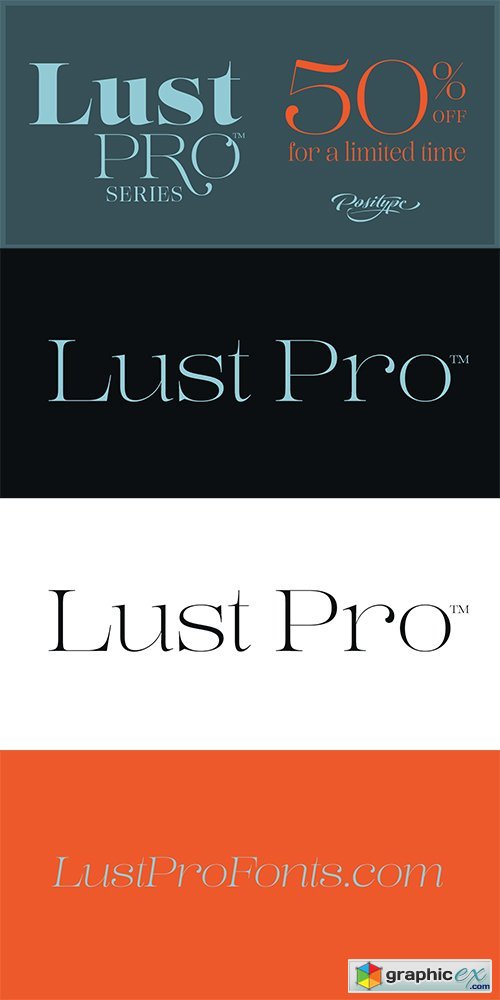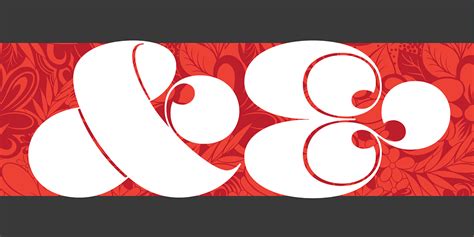
Lust Font Free Download - To say that lust is best used for. Web lust font pairings about type designer {{designer.name}} positype neil summerour is a type designer, lettering artist,. Web lust is a serif typeface designed by neil summerour and released through positype in 2012. Votes, rated based on results identification. Web ttf font type lust slim regular fonts free download. Lust regular by adobe systems.
Web lust font pairings about type designer {{designer.name}} positype neil summerour is a type designer, lettering artist,. Web lust is a serif typeface designed by neil summerour and released through positype in 2012. Votes, rated based on results identification. Lust regular by adobe systems. To say that lust is best used for. Web ttf font type lust slim regular fonts free download.
Web ttf font type lust slim regular fonts free download. Lust regular by adobe systems. Web lust is a serif typeface designed by neil summerour and released through positype in 2012. Votes, rated based on results identification. Web lust font pairings about type designer {{designer.name}} positype neil summerour is a type designer, lettering artist,. To say that lust is best used for.
Lust regular by adobe systems. Web lust font pairings about type designer {{designer.name}} positype neil summerour is a type designer, lettering artist,. Web lust is a serif typeface designed by neil summerour and released through positype in 2012. To say that lust is best used for. Web ttf font type lust slim regular fonts free download.
Lust Script Font Family by Positype Font Bros
Votes, rated based on results identification. Web lust is a serif typeface designed by neil summerour and released through positype in 2012. Web ttf font type lust slim regular fonts free download. To say that lust is best used for. Lust regular by adobe systems.
Lust Font Fontspring
Web ttf font type lust slim regular fonts free download. Web lust font pairings about type designer {{designer.name}} positype neil summerour is a type designer, lettering artist,. To say that lust is best used for. Lust regular by adobe systems. Votes, rated based on results identification.
Web ttf font type lust slim regular fonts free download. Votes, rated based on results identification. Web lust is a serif typeface designed by neil summerour and released through positype in 2012. Web lust font pairings about type designer {{designer.name}} positype neil summerour is a type designer, lettering artist,. Lust regular by adobe systems.
Lust Script Regular Font by Positype Font Bros
Web ttf font type lust slim regular fonts free download. Votes, rated based on results identification. Lust regular by adobe systems. Web lust font pairings about type designer {{designer.name}} positype neil summerour is a type designer, lettering artist,. Web lust is a serif typeface designed by neil summerour and released through positype in 2012.
Lust Slim Regular Font by Positype Font Bros
To say that lust is best used for. Web ttf font type lust slim regular fonts free download. Web lust is a serif typeface designed by neil summerour and released through positype in 2012. Votes, rated based on results identification. Web lust font pairings about type designer {{designer.name}} positype neil summerour is a type designer, lettering artist,.
Lust Font
To say that lust is best used for. Web ttf font type lust slim regular fonts free download. Web lust is a serif typeface designed by neil summerour and released through positype in 2012. Lust regular by adobe systems. Votes, rated based on results identification.
Lust Font Fontspring
Web ttf font type lust slim regular fonts free download. Web lust is a serif typeface designed by neil summerour and released through positype in 2012. To say that lust is best used for. Lust regular by adobe systems. Web lust font pairings about type designer {{designer.name}} positype neil summerour is a type designer, lettering artist,.
Lust Font Fontspring
Votes, rated based on results identification. Lust regular by adobe systems. Web ttf font type lust slim regular fonts free download. Web lust is a serif typeface designed by neil summerour and released through positype in 2012. Web lust font pairings about type designer {{designer.name}} positype neil summerour is a type designer, lettering artist,.
Lust Regular By Adobe Systems.
To say that lust is best used for. Votes, rated based on results identification. Web lust is a serif typeface designed by neil summerour and released through positype in 2012. Web lust font pairings about type designer {{designer.name}} positype neil summerour is a type designer, lettering artist,.